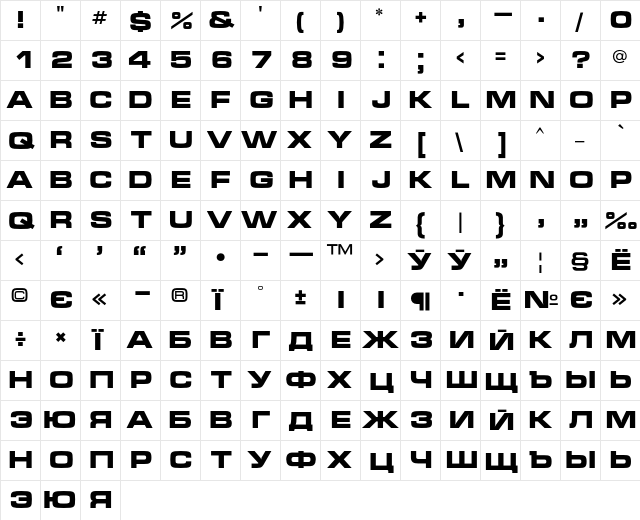
Micra Bold
Design Context for Micra Typeface
Micra offers clean, dependable letterforms without strong stylistic allegiance, making it a practical choice for designers who need flexibility. The heavy weight commands attention and anchors typographic hierarchies.